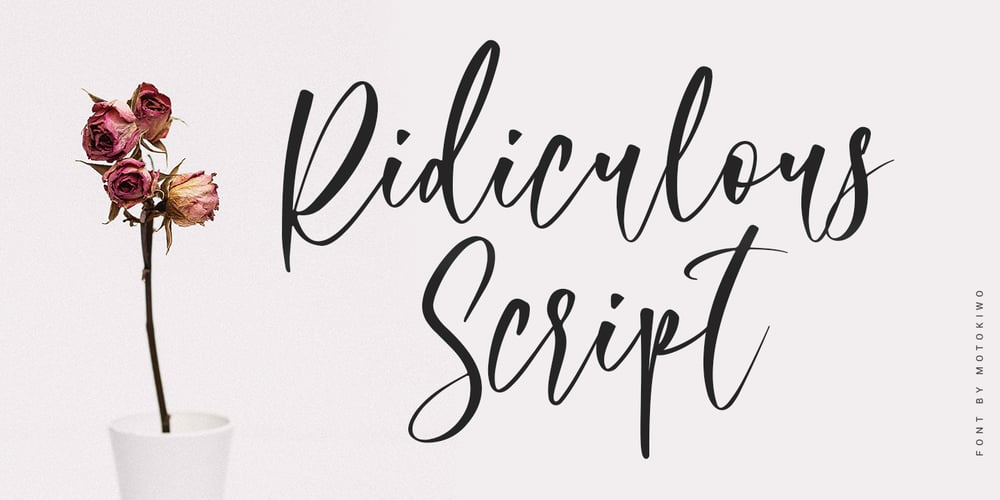
Ridiculous Script
Ridiculous Script font
Ridiculous Script Font Family was designed by Anton Cahyono and published by Motokiwo. Ridiculous Script contains 1 styles and family package options. Ridiculous Script is a lovely modern calligraphy font with a romantic flow. It’s bouncy, beautiful, and flexible script font that recommended for wedding and sweet projects. Features: – Uppercase & Lowercase – Numeral & Punctuation – Multilingual Support – Easy to use